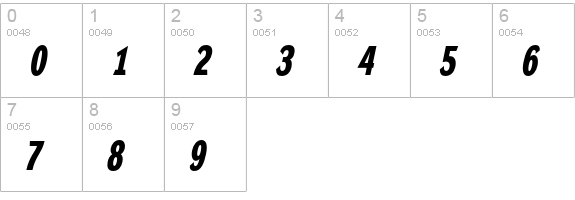
Dynamo Italic B C Font Details
Dynamo Italic B C is a distinctive, italic variant in the Dynamo typeface family \xE2\x80\x94 well suited to design and typography projects.
Dynamo Italic B C font is a sleek and modern typeface that exudes elegance and sophistication. Its italicized design adds a touch of flair to any project, making it perfect for branding, editorial design, and more. The precise curves and sharp angles of this font give it a dynamic and energetic feel, making it stand out from the crowd. What's even better is that Dynamo Italic B C font is completely free to download at FontsMarket.com. This means you can add this stylish font to your collection without any cost, making it a valuable asset for any designer or creative professional. Don't miss out on the opportunity to enhance your projects with the striking Dynamo Italic B C font - download it today and take your designs to the next level!